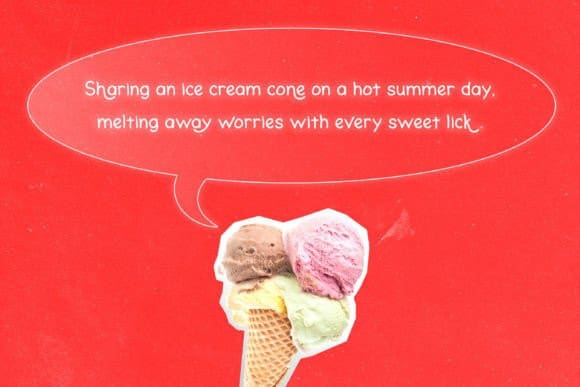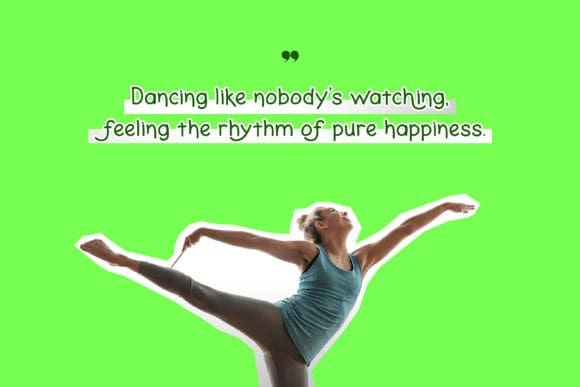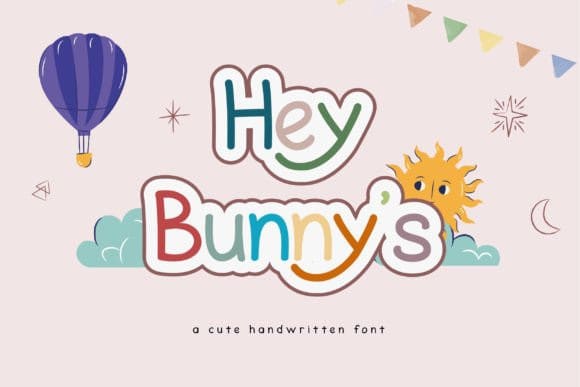
Hey Bunny’s Font
Hey Bunny’s Font a charming and adorable handwritten font! Infuse your projects with a touch of cuteness and playfulness using Hey Bunny’s, a delightful handwritten font designed to capture hearts. With its lovable and cute style, this font is perfect for adding a sprinkle of charm to various design projects. This font is PUA encoded which means you can access all of the amazing glyphs and ligatures with ease!